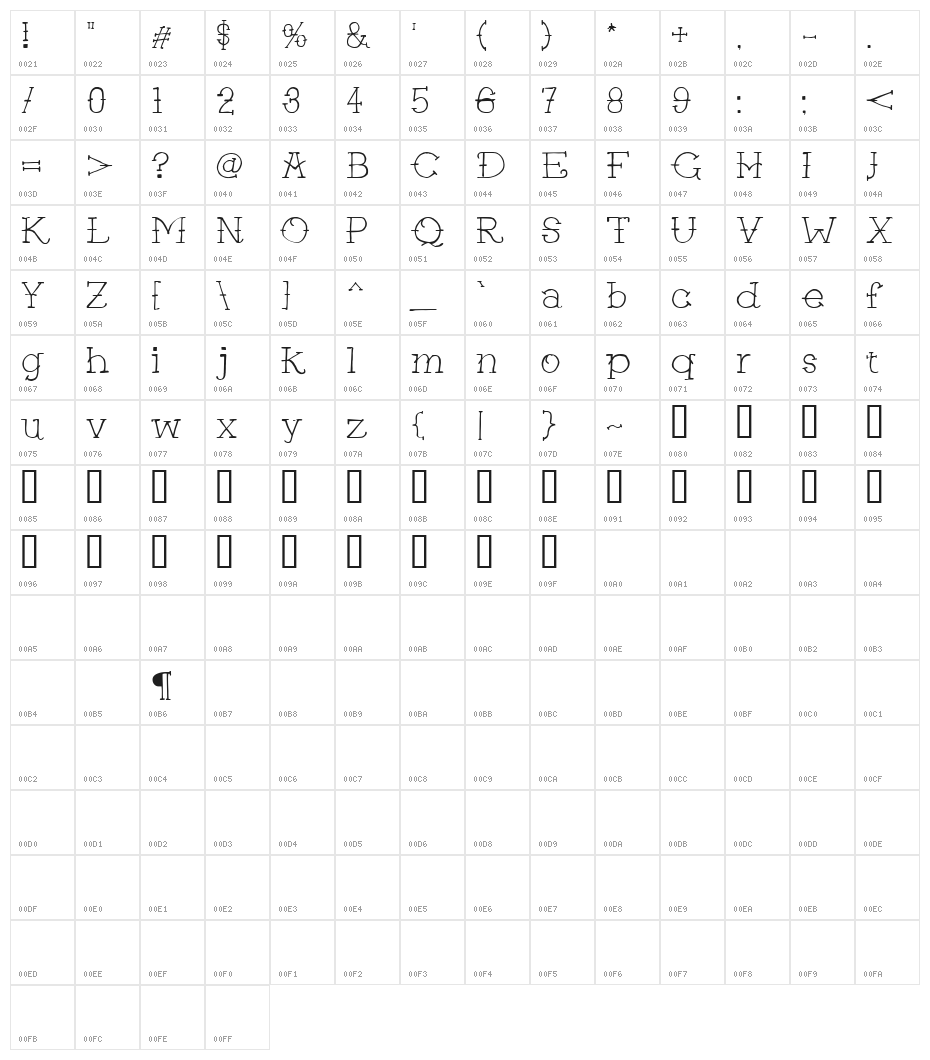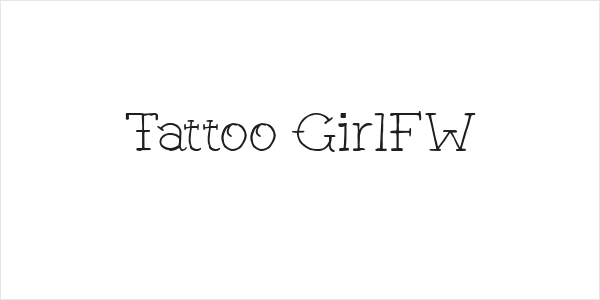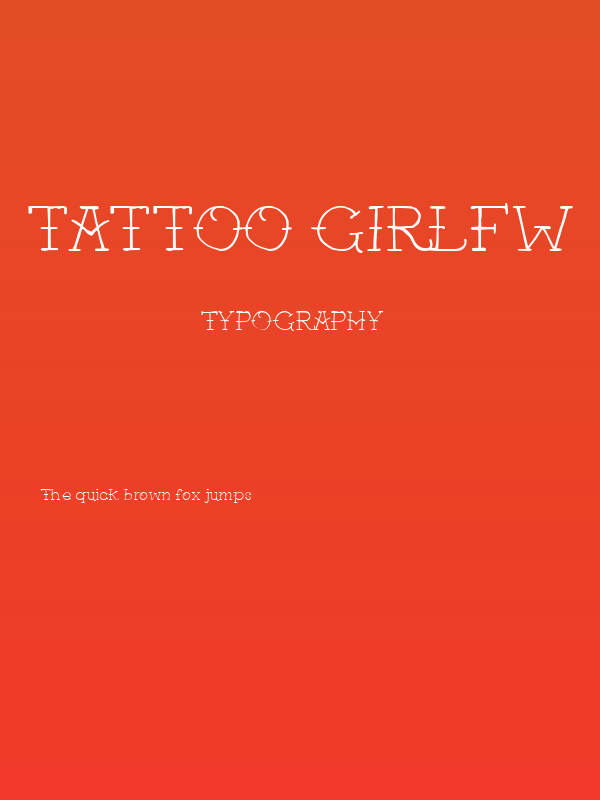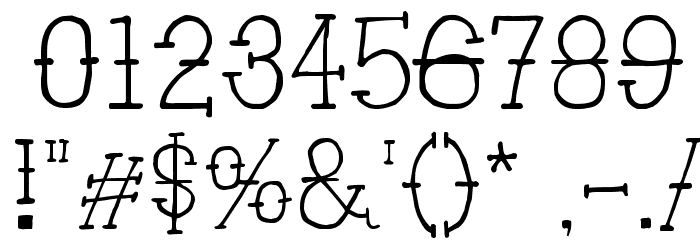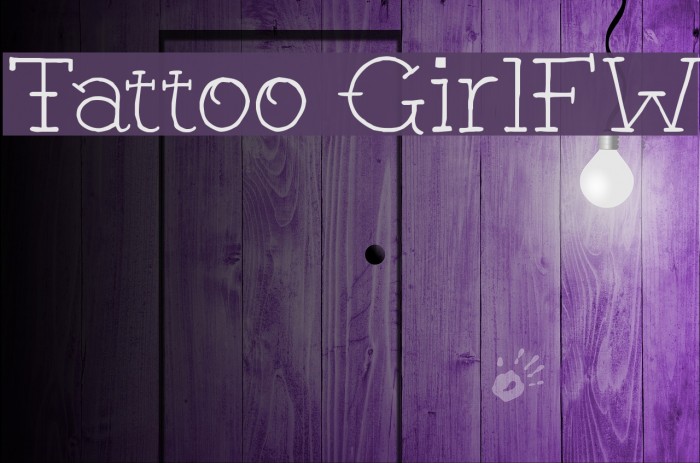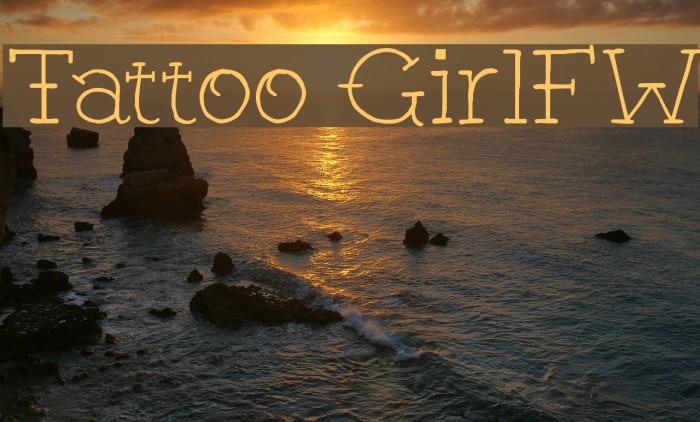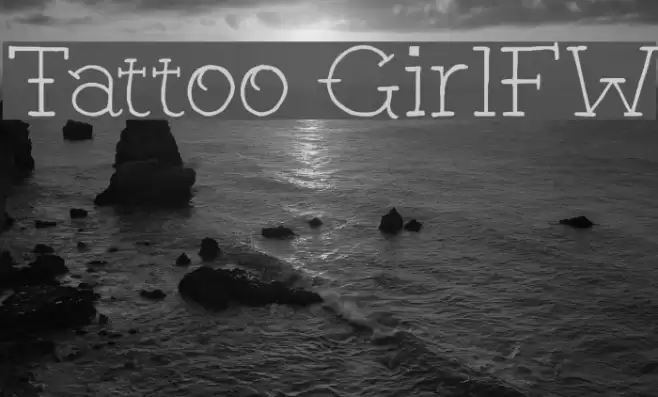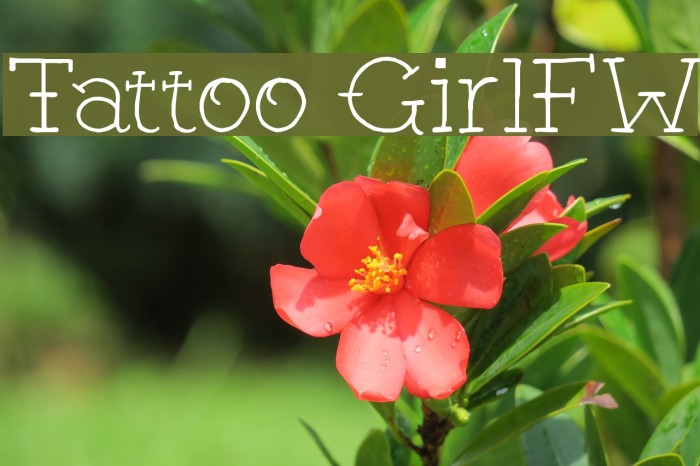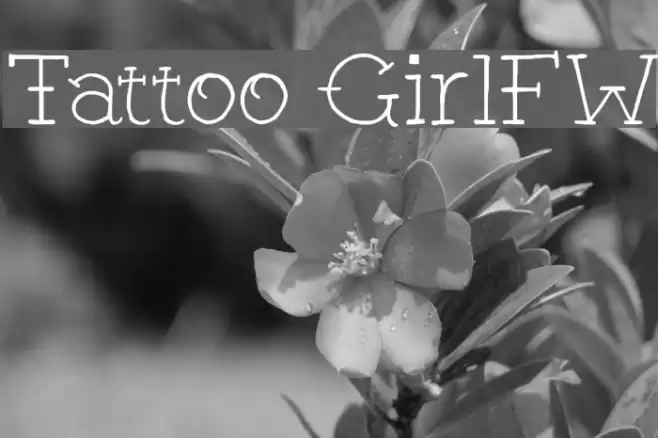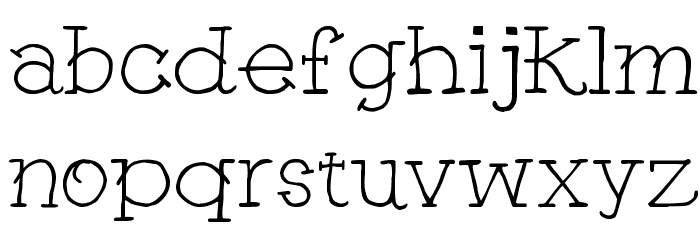
Tattoo GirlFW Font
Tattoo GirlFW Description
This font features a unique and artistic style with a hand-drawn appearance, characterized by its irregular strokes and whimsical curves. The uppercase letters have a playful, almost cartoonish quality, with exaggerated serifs and varying line thicknesses that give them a dynamic look. The lowercase letters maintain this playful aesthetic, with some characters featuring loops and swirls that add to the font's charm. Numbers and special characters are equally distinctive, with bold, expressive lines that ensure readability while maintaining the font's artistic flair. This font is perfect for projects that require a creative and informal touch, such as children's books, playful branding, or artistic posters.
| Overall Style | Artistic, Playful |
| Proposed Projects | Ideal for children's books, playful branding, artistic posters, and creative designs. |